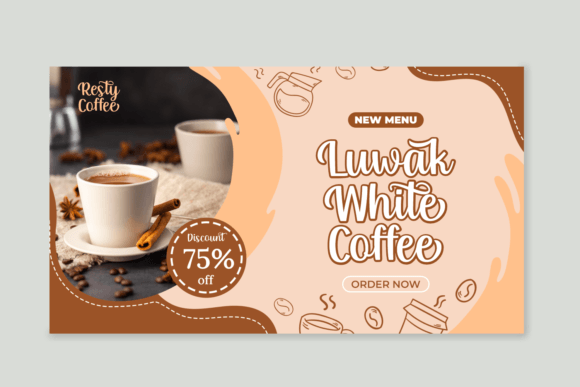
Introduction to Rinda Font Font
Fonts play a crucial role in design, and the Rinda Font font is a typeface that brings both character and versatility to any project. Whether you’re working on a branding project, a website, or a print design, the Rinda Font font offers a unique style that can elevate your work.
Rinda is an elegant and distinct-looking script font.
It looks stunning on wedding invitations, thank you cards, quotes, greeting cards, logos, business cards, and every other design which needs a customized touch Add this lovely font to your creations and take your designs to the next level.
Key Features of Rinda Font Font
Why Choose Rinda Font Font?
The Rinda Font font is more than just a typeface – it’s a design tool that helps you communicate your message with style and clarity. Its unique character set and versatile design make it suitable for a wide range of applications, from elegant invitations to bold headlines.
With its carefully crafted letterforms and balanced proportions, the Rinda Font font ensures readability and visual appeal across all mediums.
What makes Rinda Font font special?
The Rinda Font font stands out with its unique design, exceptional readability, and versatility across various design applications.